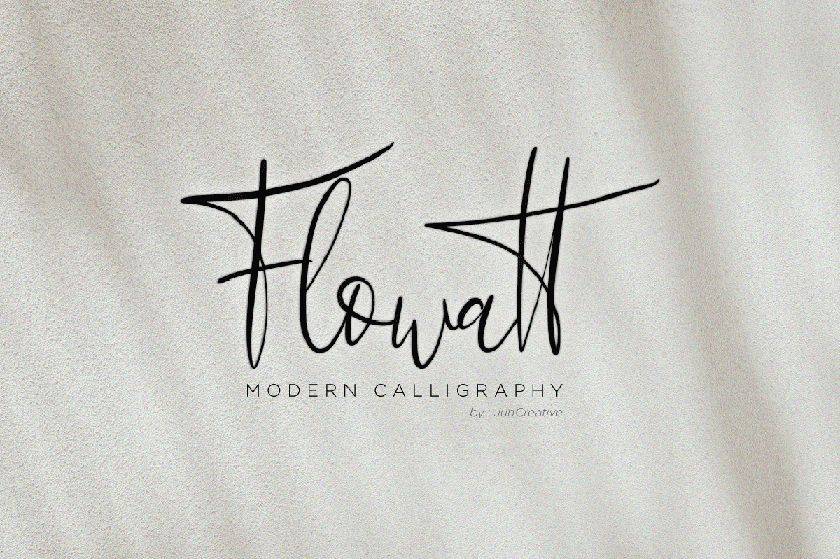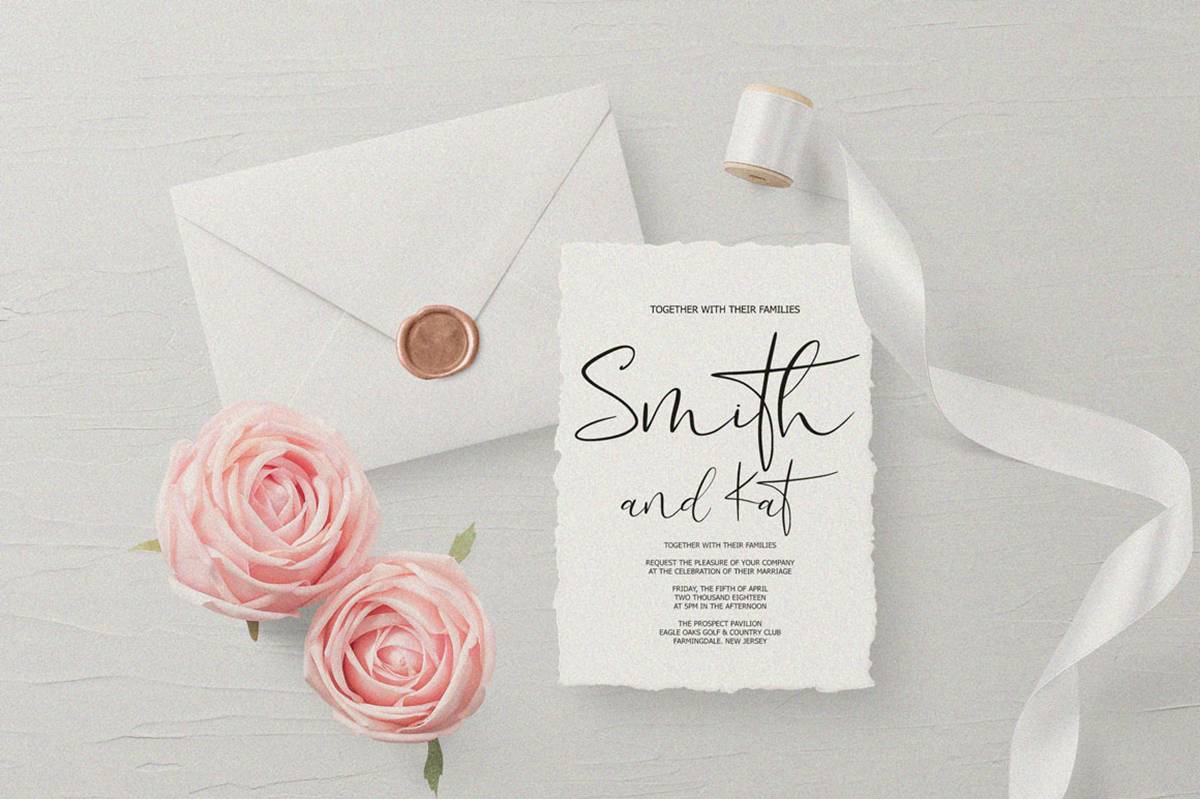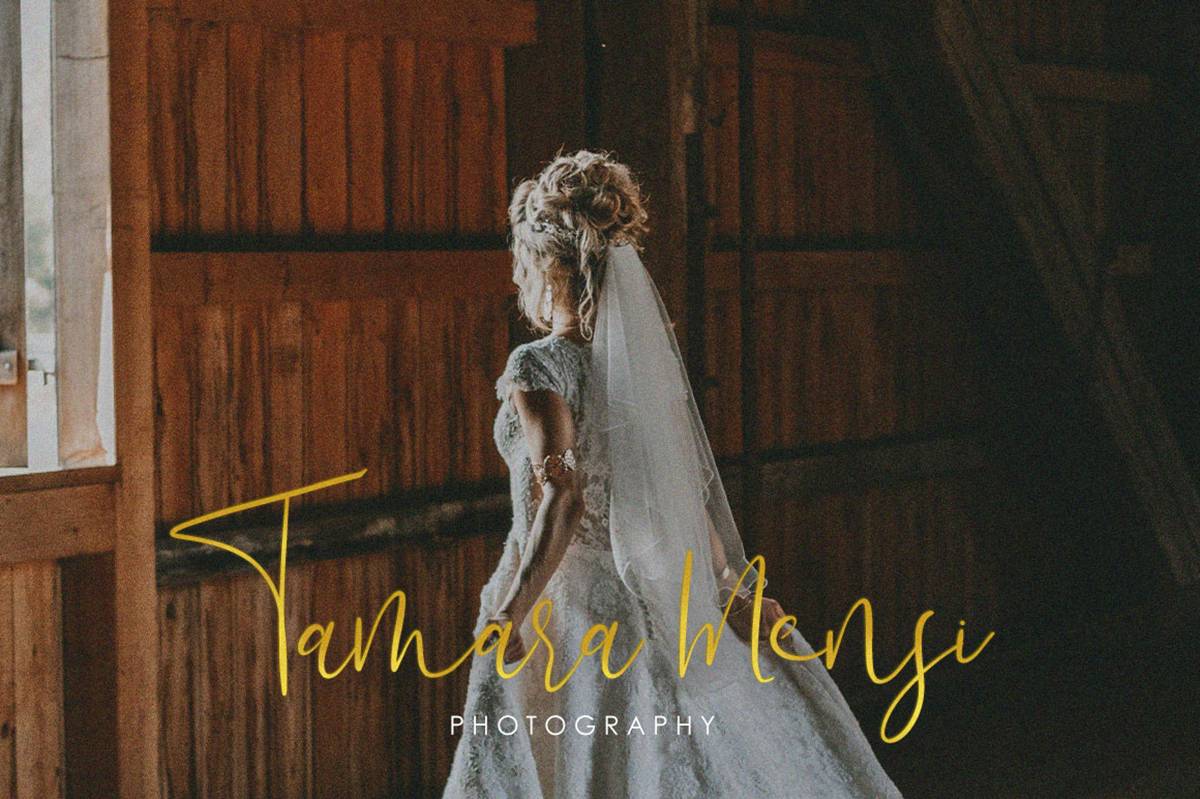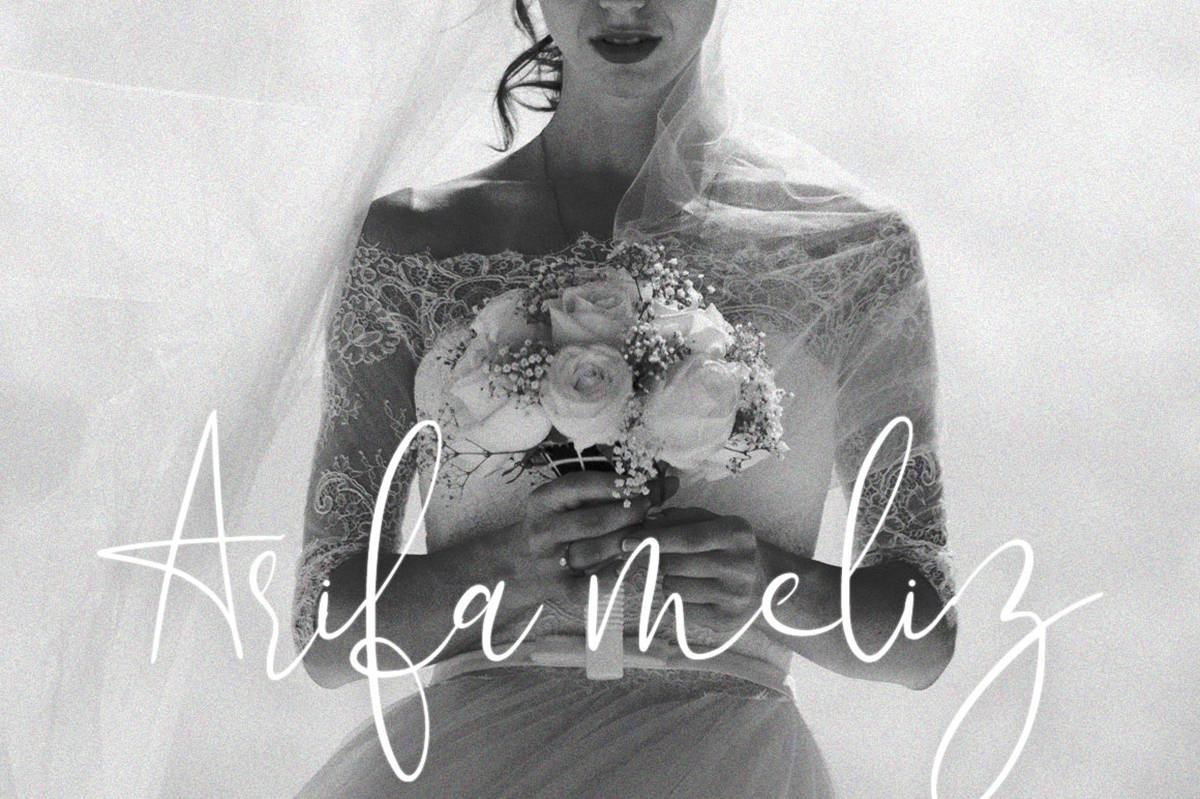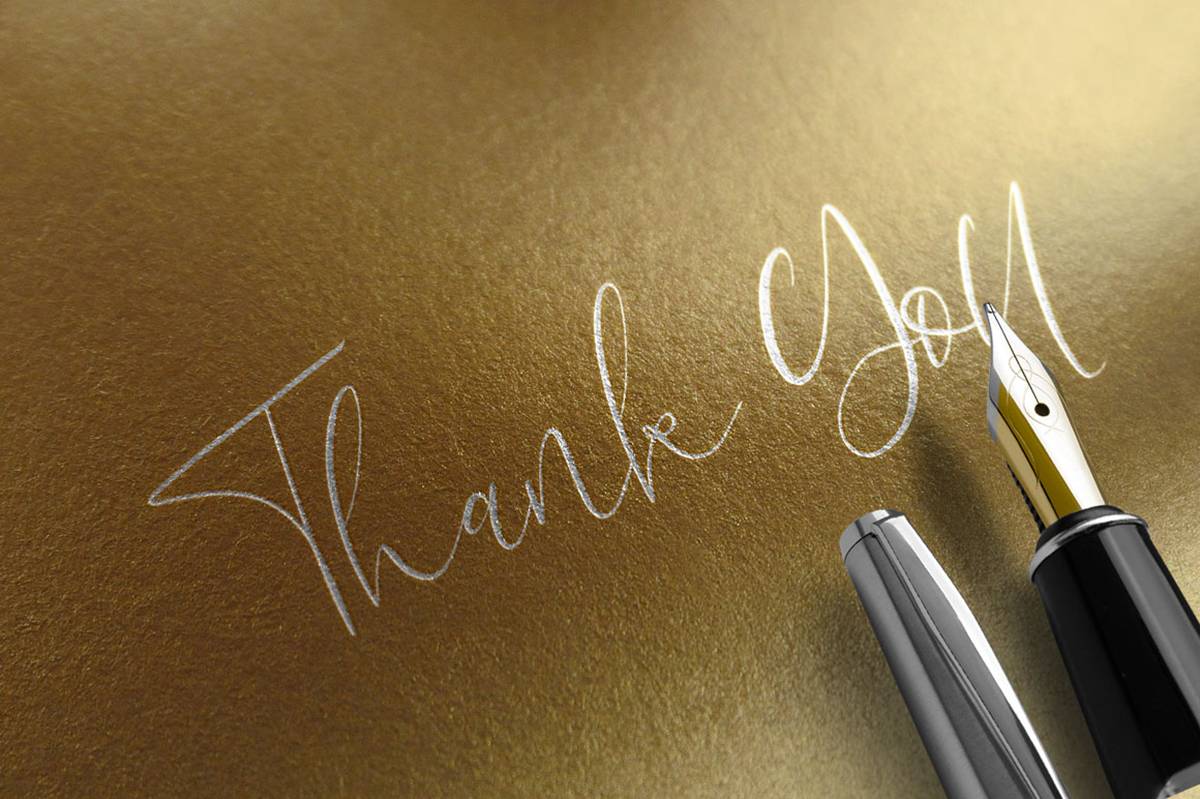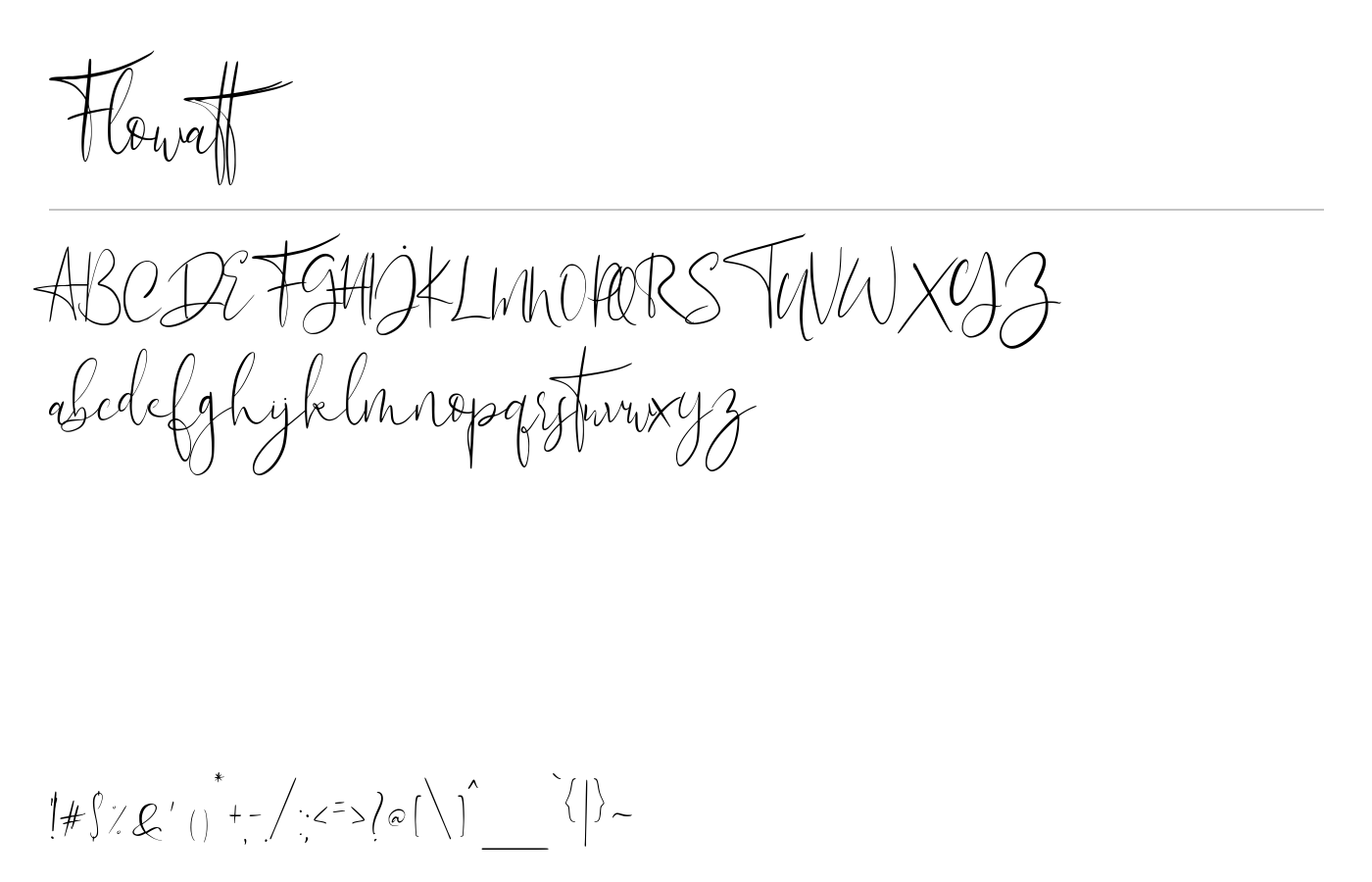
Flowatt is a delicate and elegant handwritten script font with a light, airy feel created by slender, flowing strokes. Its tall, narrow letterforms and playful irregularities give it a sophisticated yet casual charm, making it perfect for personal branding, invitations, and creative projects that want a touch of artistic flair. This font works beautifully in designs that seek a modern and expressive handwritten style with a unique, stylish personality.
| Font family | Flowatt Font |
| Designer | JunCreative |